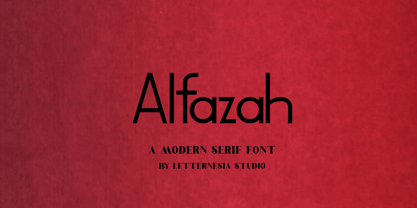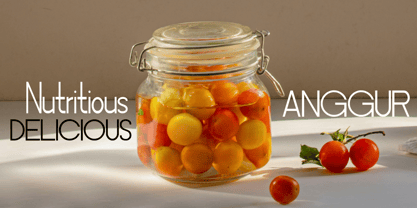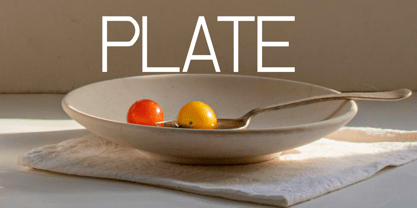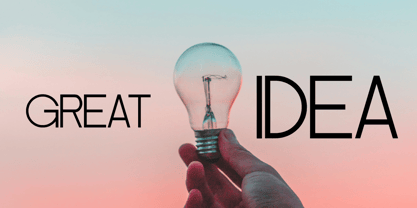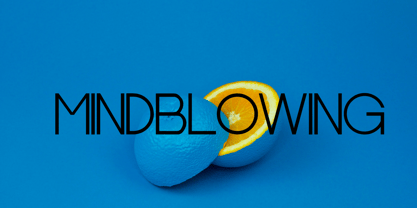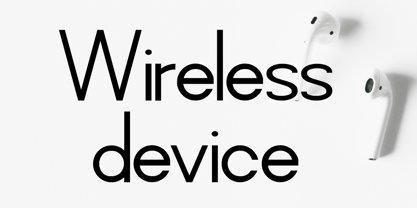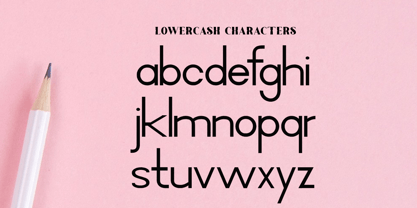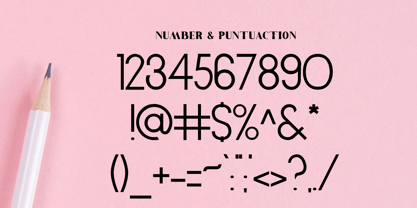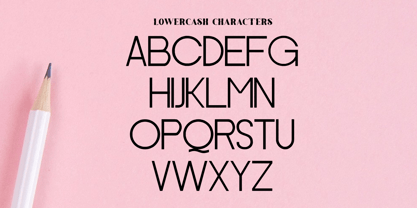
Alfaza
by Letternesia studio
The Alfaza Font Family was designed by Ta Siyo and published by Letternesia studio. Alfaza contains 2 styles and family package options. More about this family
ALFAZA is a bold and confident display font designed to make a strong visual statement. Featuring solid letterforms with a modern and dynamic style, this font instantly captures attention and delivers impact. Perfect for logos, headlines, branding, posters, packaging, social media graphics, and promotional designs, ALFAZA provides a powerful presence while remaining clear and readable. Its strong structure and expressive character make it ideal for projects that demand a modern, striking, and professional look. ALFAZA is the perfect choice for designers seeking a display font that is modern, expressive, and impactful.
Designers: Ta Siyo
Foundry: Letternesia studio